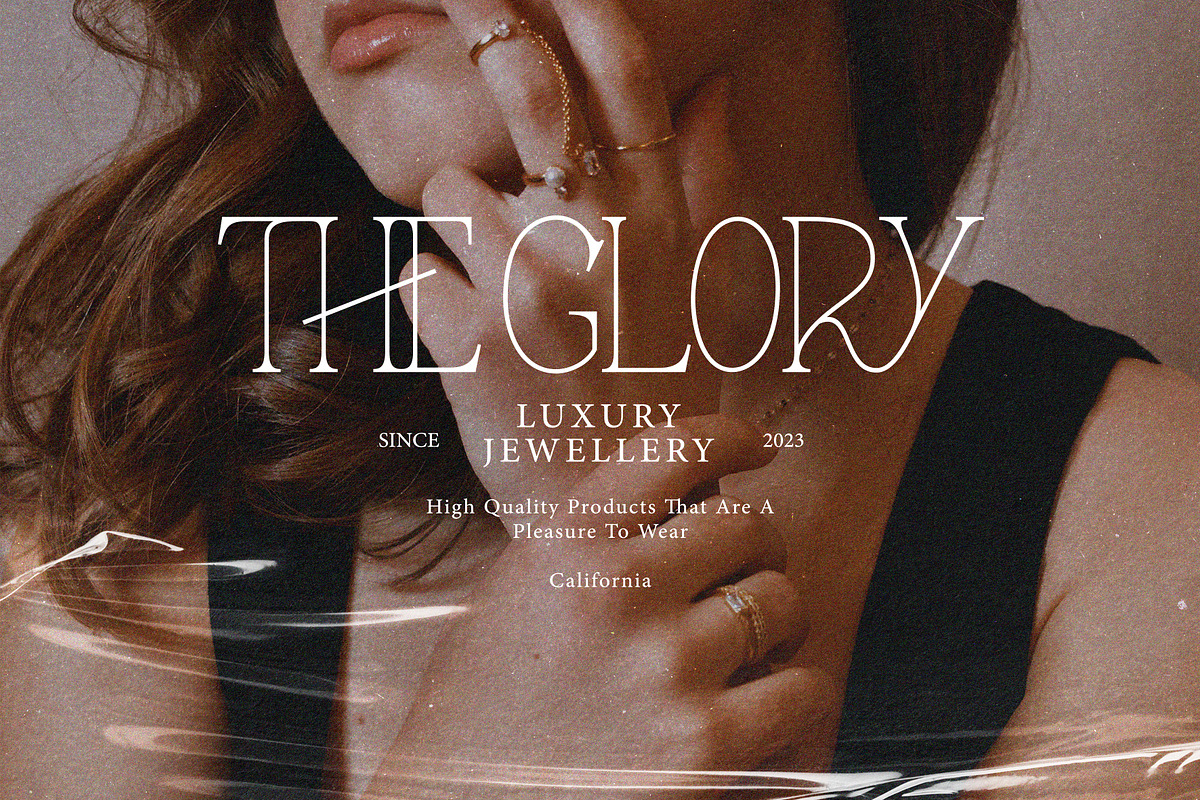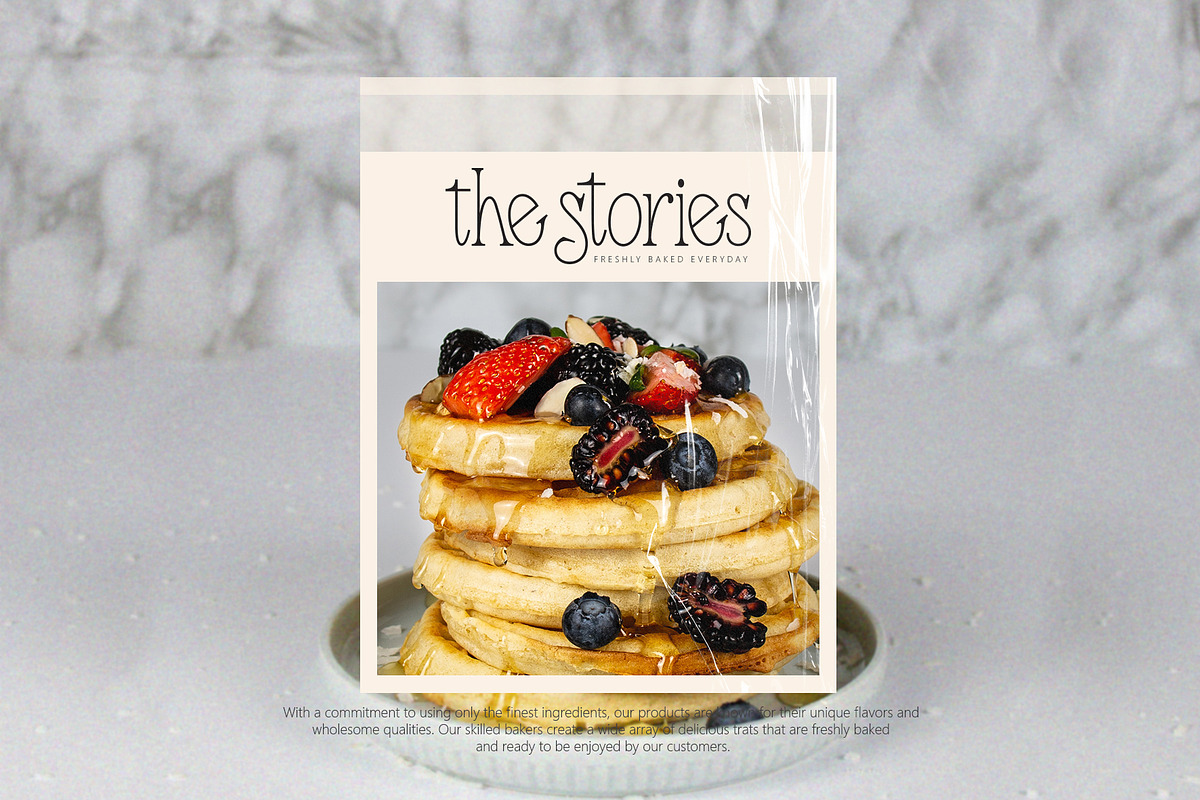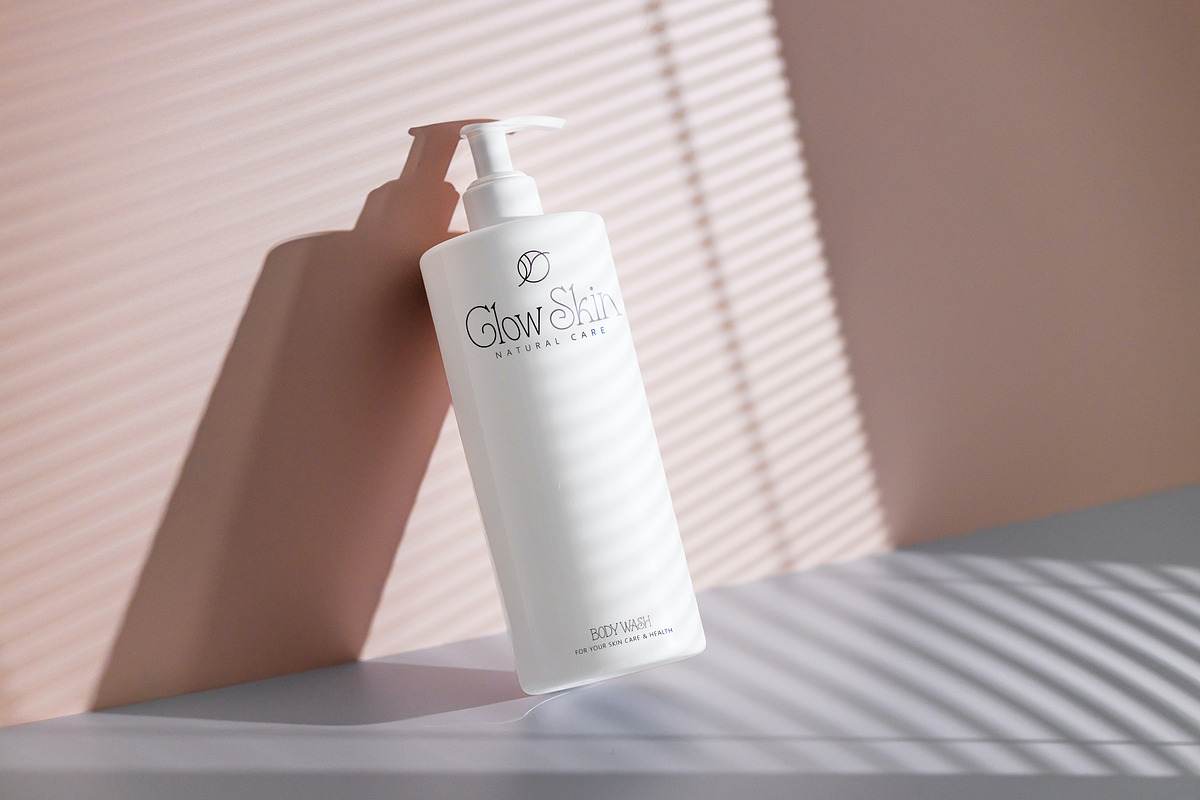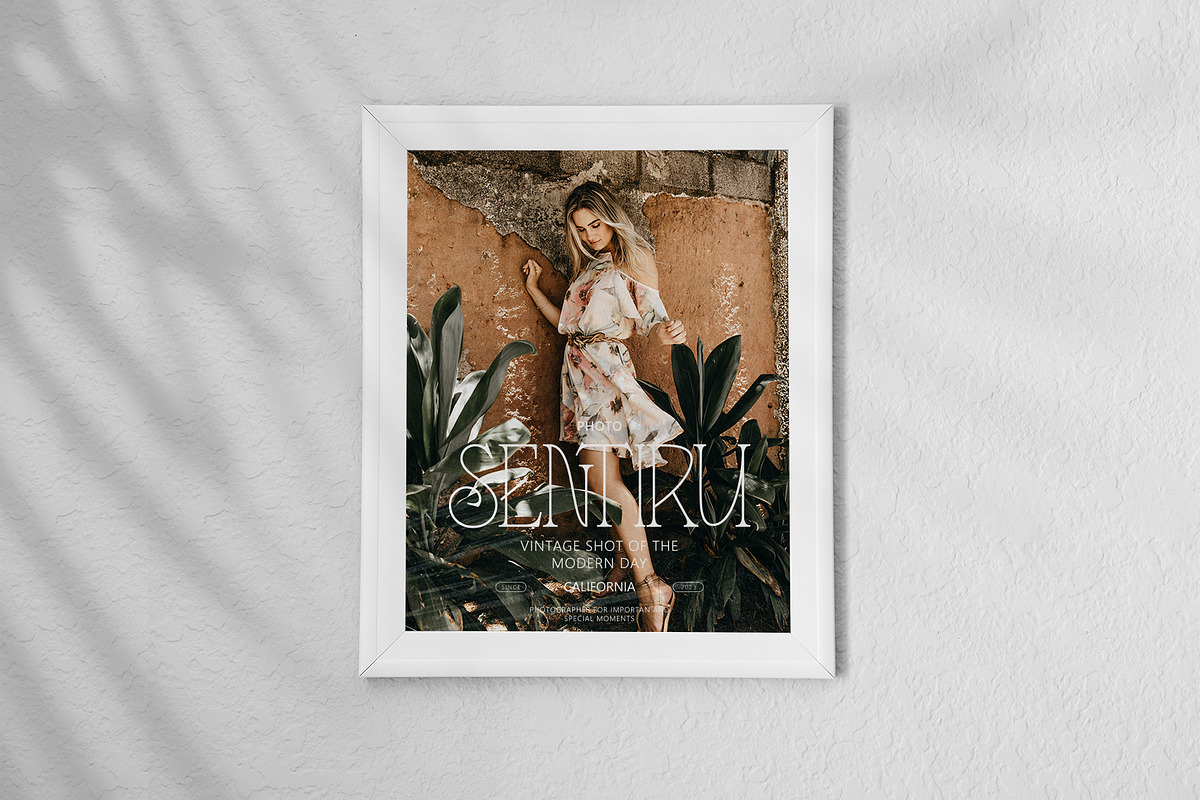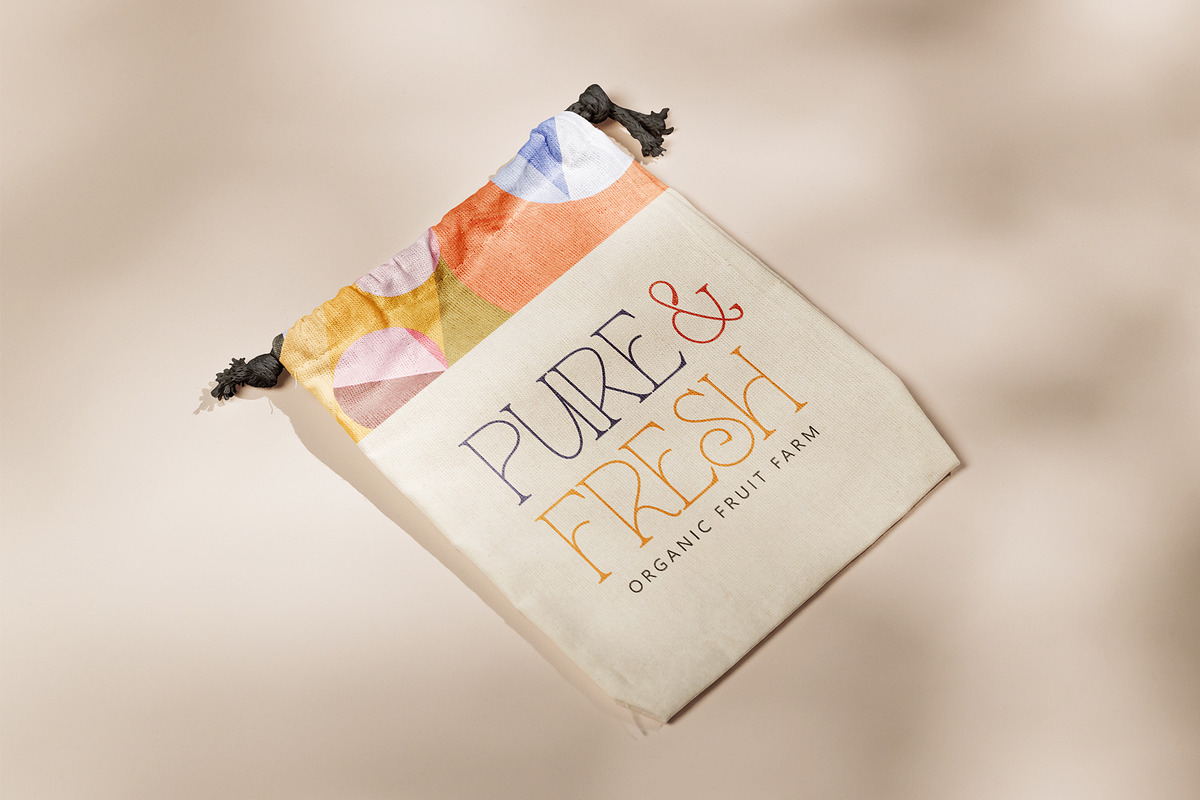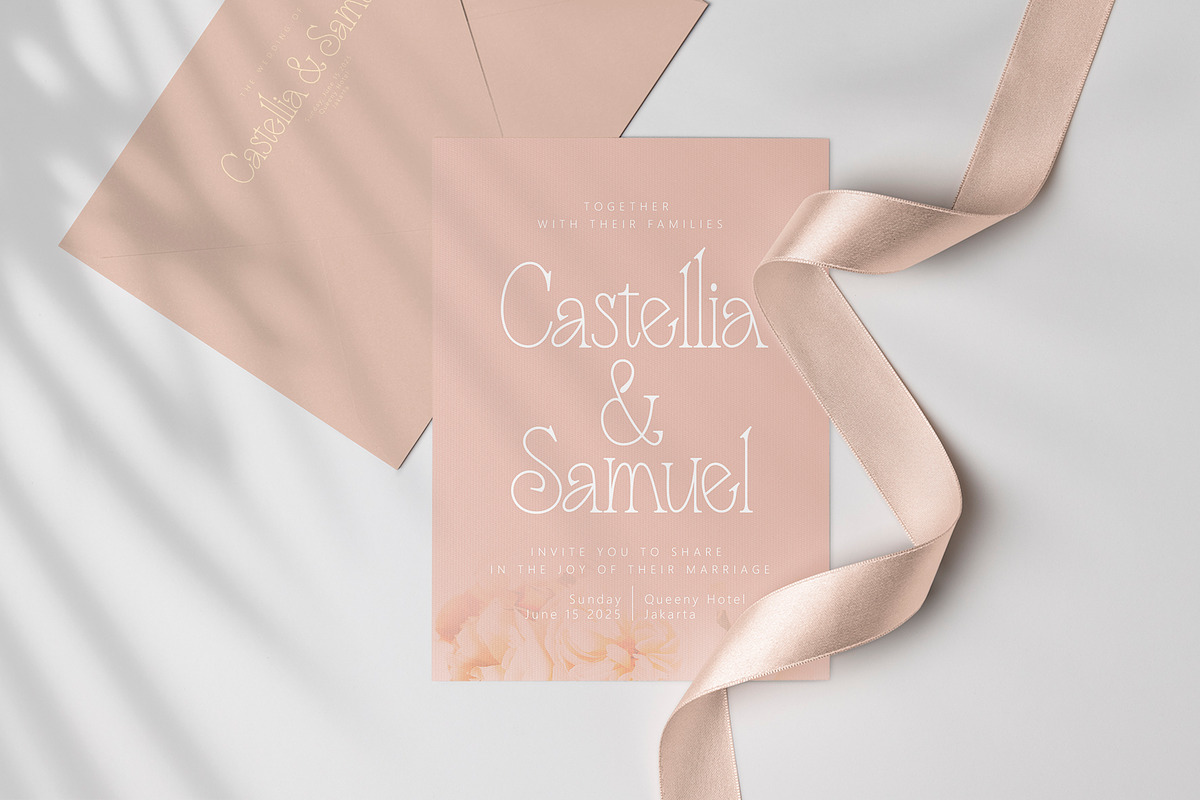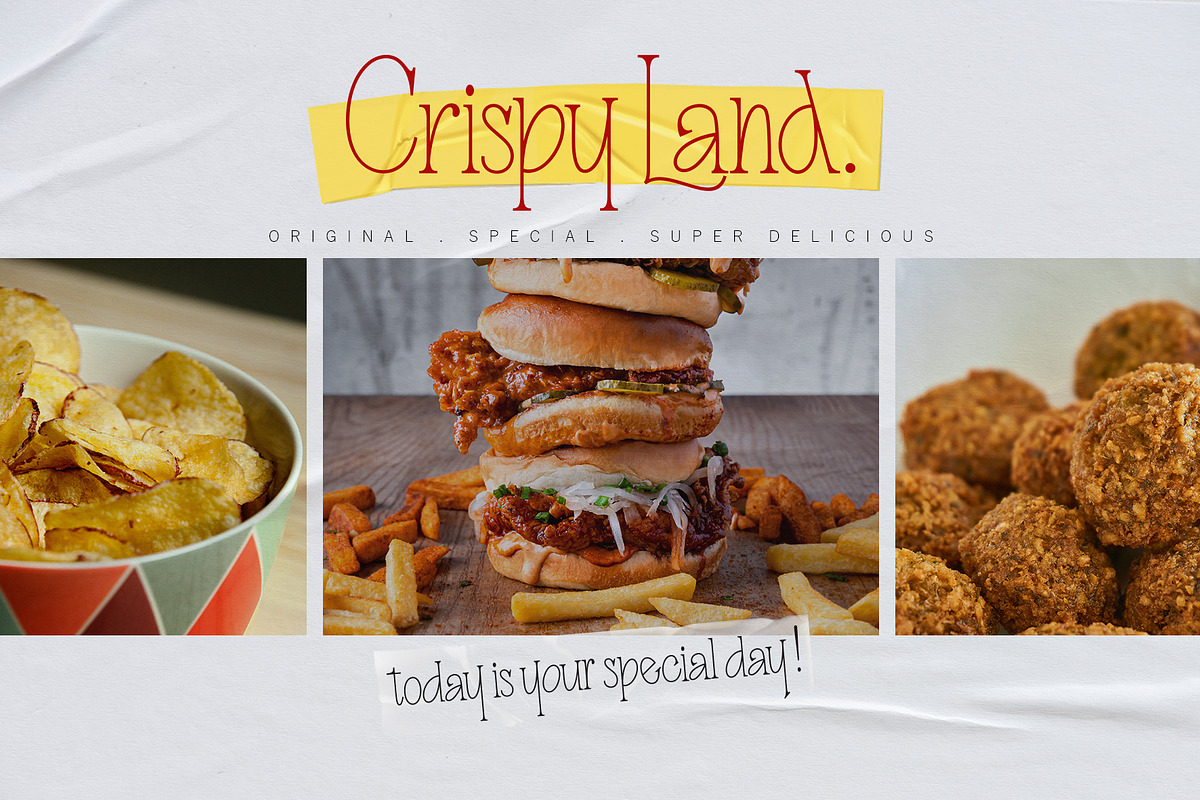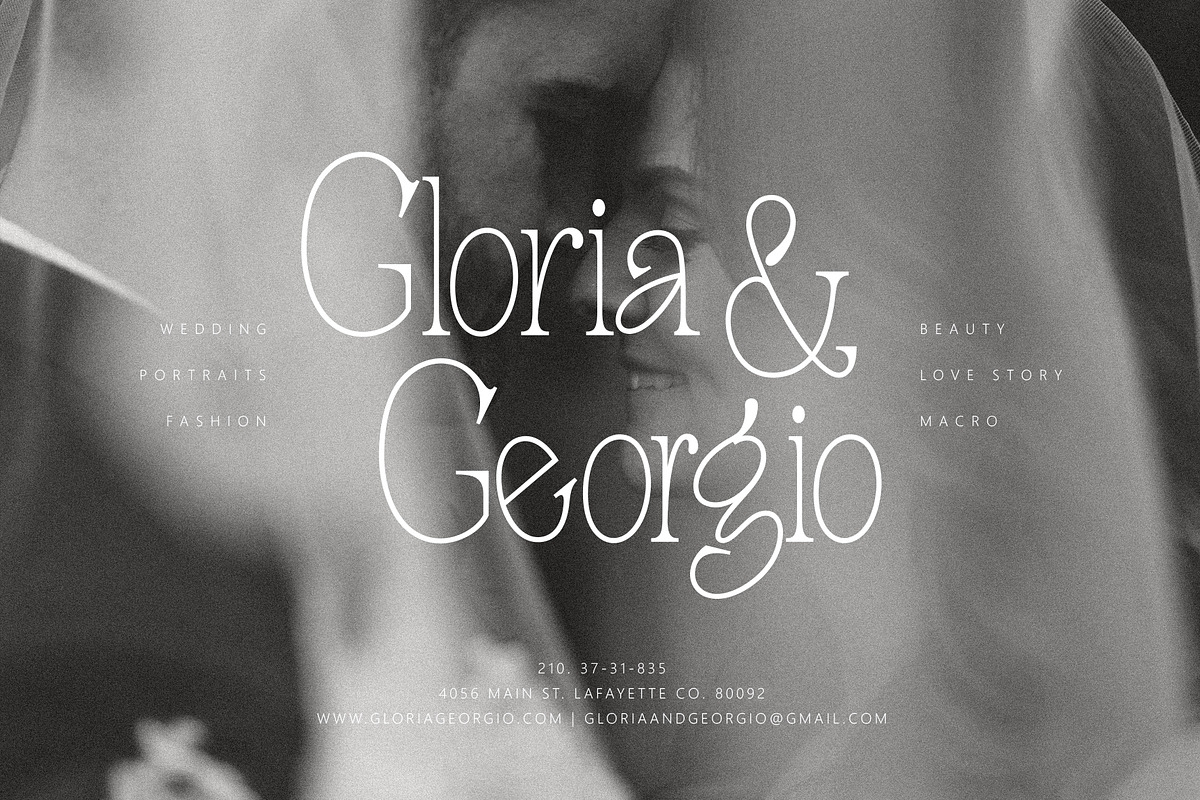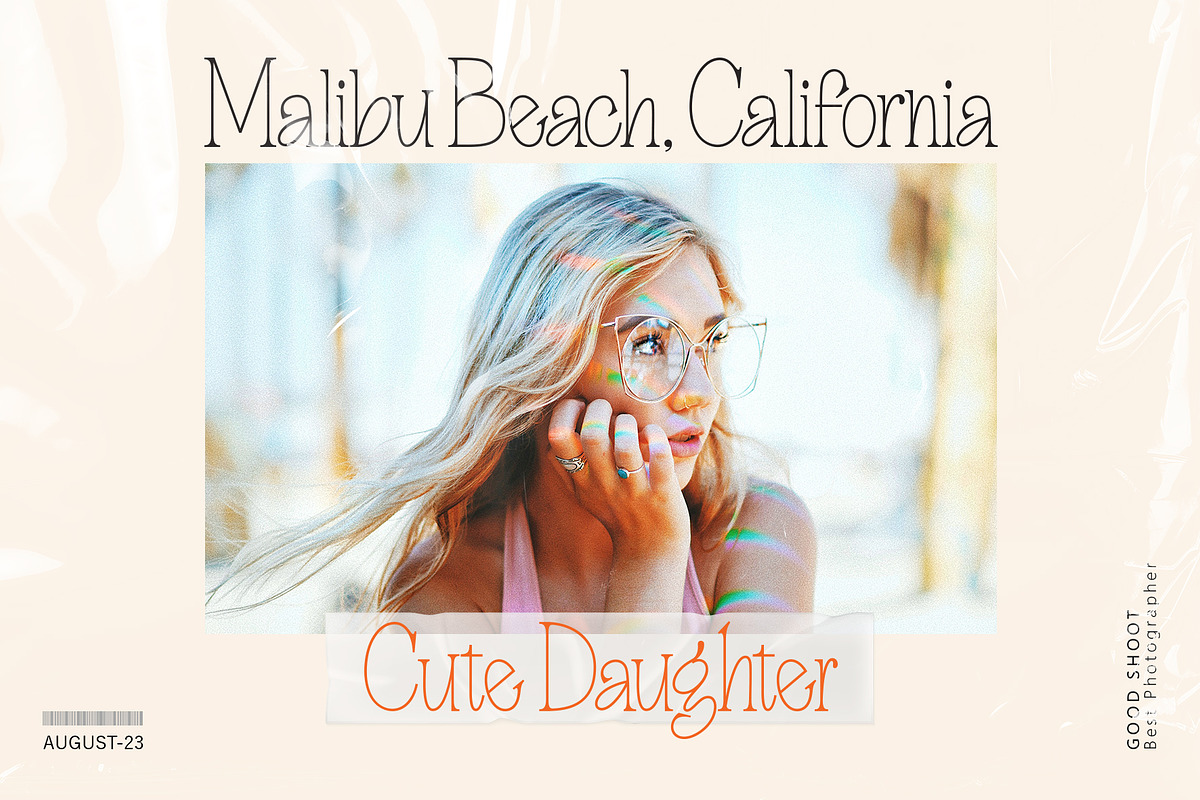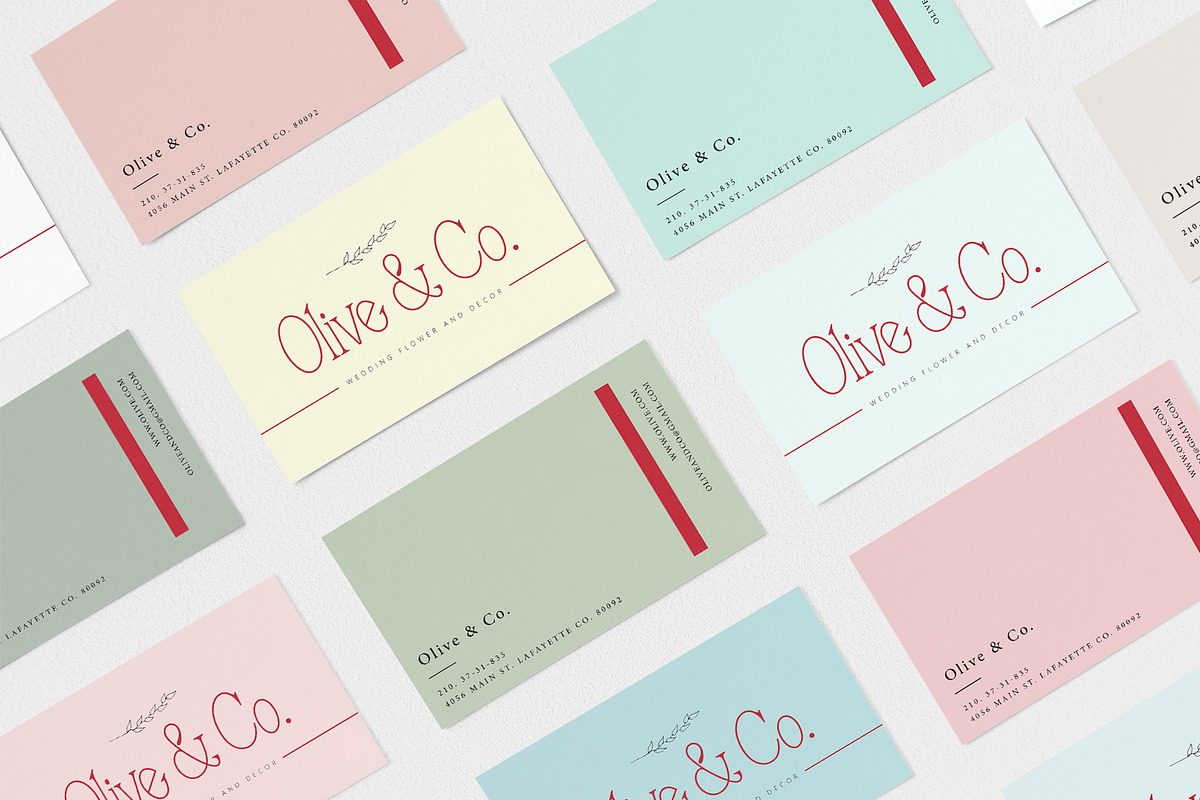
SHINELIGHT
SHINELIGHT is a beautiful display font that is suitable for branding, wedding invitations, greeting cards, posters, name card, quotes, blog header, logo, fashion, apparel, letter, stationery and other projects.
SHINELIGHT come with 350+ glyphs. The alternative characters were divided into several Open Type features such as Swash, Stylistic Sets, Stylistic Alternates, Contextual Alternates. The Open Type features can be accessed by using Open Type programs such as Adobe Illustrator, Adobe InDesign, Adobe Photoshop Corel Draw X version, And Microsoft Word. And this Font has given PUA Unicode (specially coded fonts). so that all the alternate characters can easily be accessed in full by a craftsman or designer.
SHINELIGHT : Uppercase ( 2 style variations ) & Lowercase ( 4 style variations ), International Language & Symbols Support Punctuation & Number PUA Unicode Range Standard Stylistic Alternates Stylistic Set Many Variant Contextual.